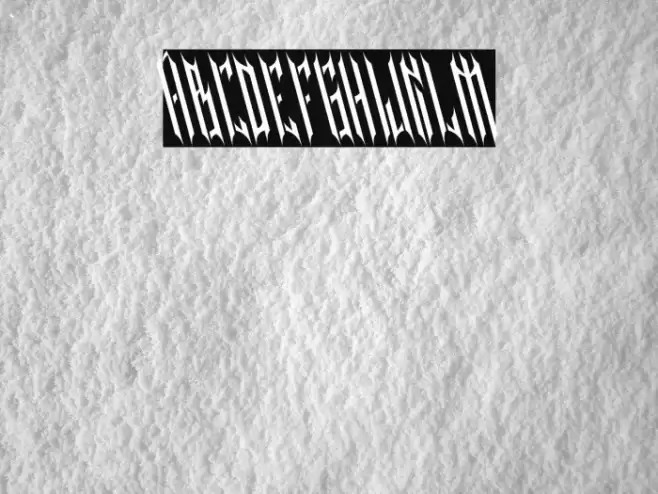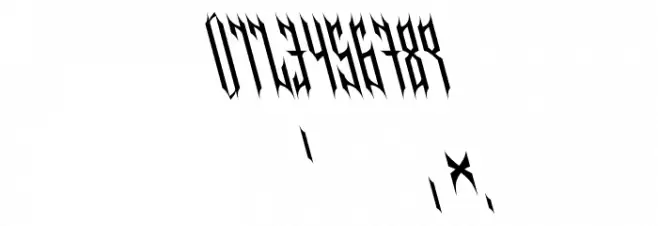
NETHER TYPE BETA 002 Reverse Font
NETHER TYPE BETA 002 Reverse Description
This font features a striking, angular design with sharp edges and a gothic-inspired aesthetic. The characters are bold and elongated, giving them a dramatic and intense appearance. The uppercase and lowercase letters maintain a consistent style, with a distinct emphasis on vertical lines and pointed serifs. Numbers and special characters follow the same stylistic cues, ensuring uniformity across all glyphs. The overall design evokes a sense of mystery and edginess, making it suitable for projects that require a bold statement.
A bold, angular font with a gothic-inspired, dramatic style from Uncategorized fonts.
- Proposed Projects: Ideal for album covers, horror-themed posters, video game titles, or any project needing a bold, edgy look.
- Character Spacing: Tight
- Overall Style: Gothic, Dramatic